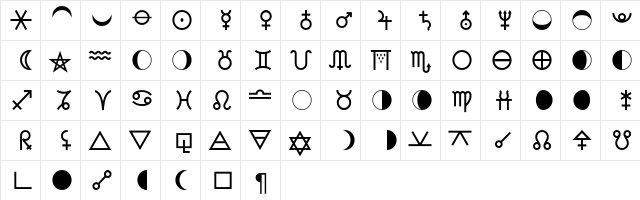
AstrotypeP LT Std Regular Regular
| Foundry | Linotype Library GmbH |
| Designer | Andreas Hild |
Design Context for AstrotypeP LT Std Regular Typeface
AstrotypeP LT Std Regular is a composed and adaptable typeface that performs quietly and consistently across a wide range of design contexts. The delicate stroke weight brings airiness and refinement to layouts.